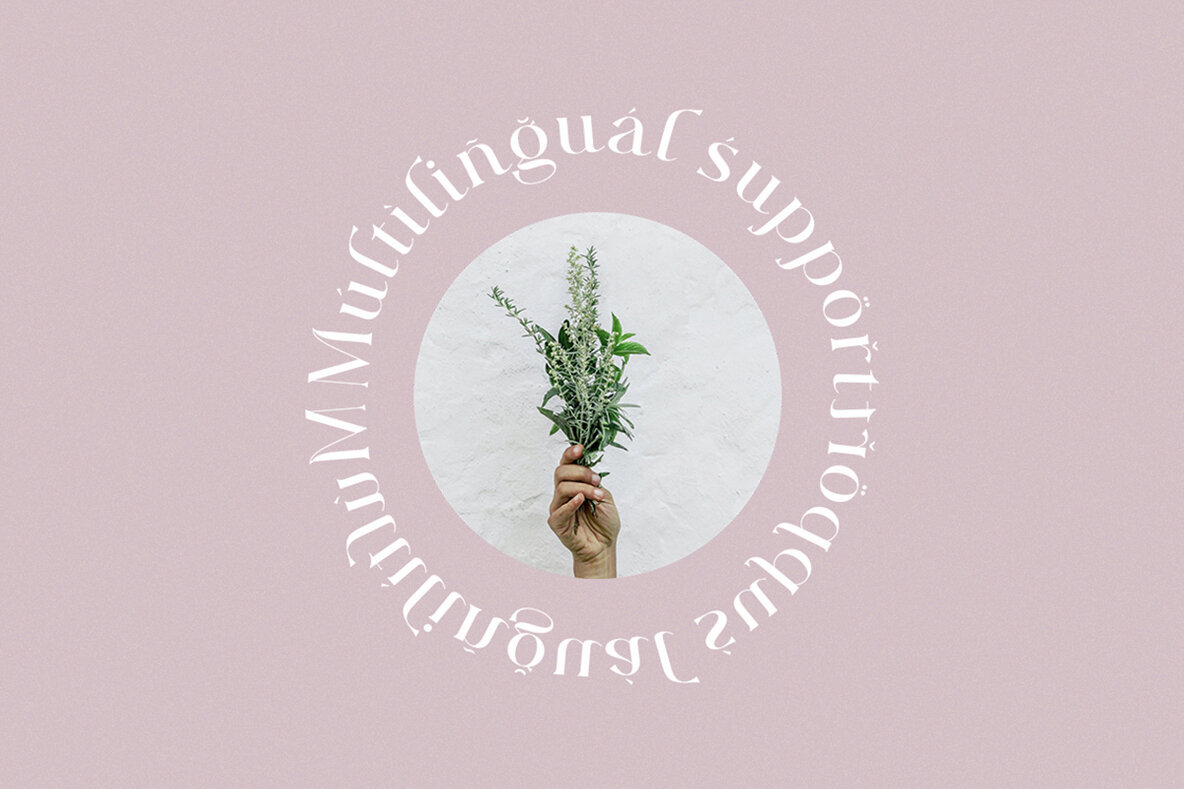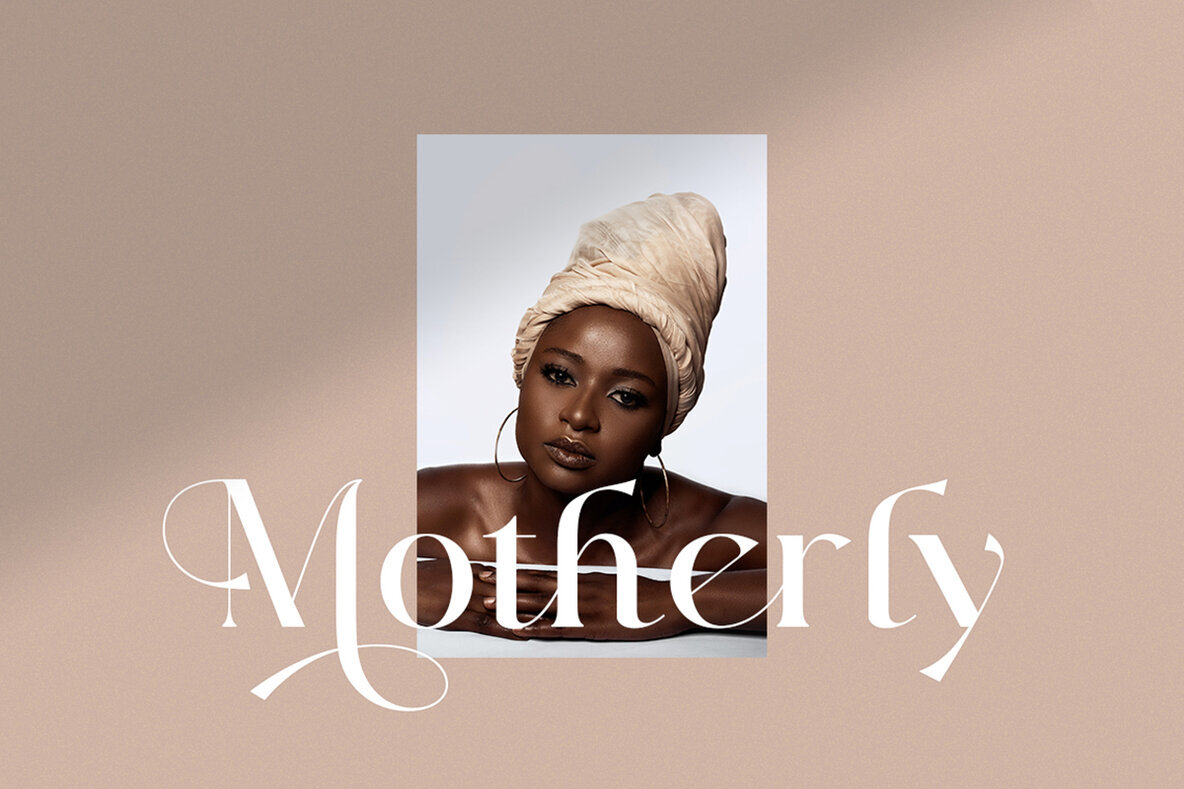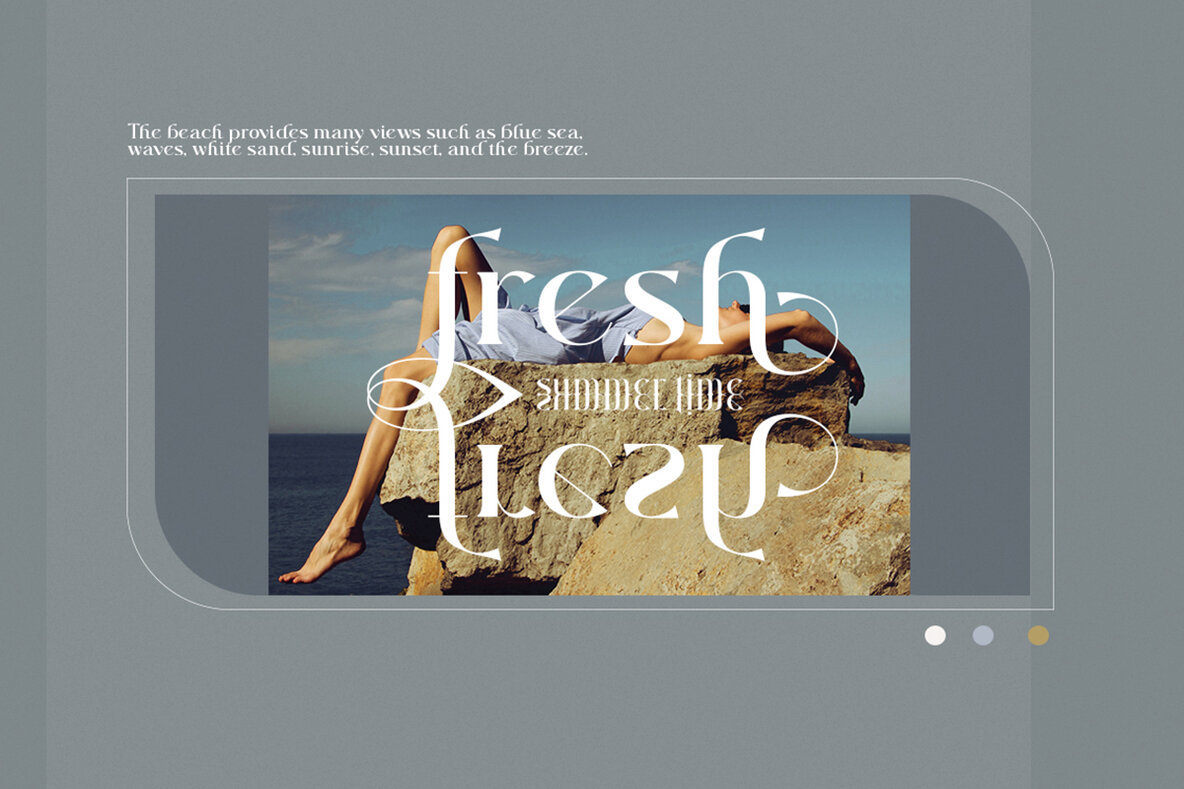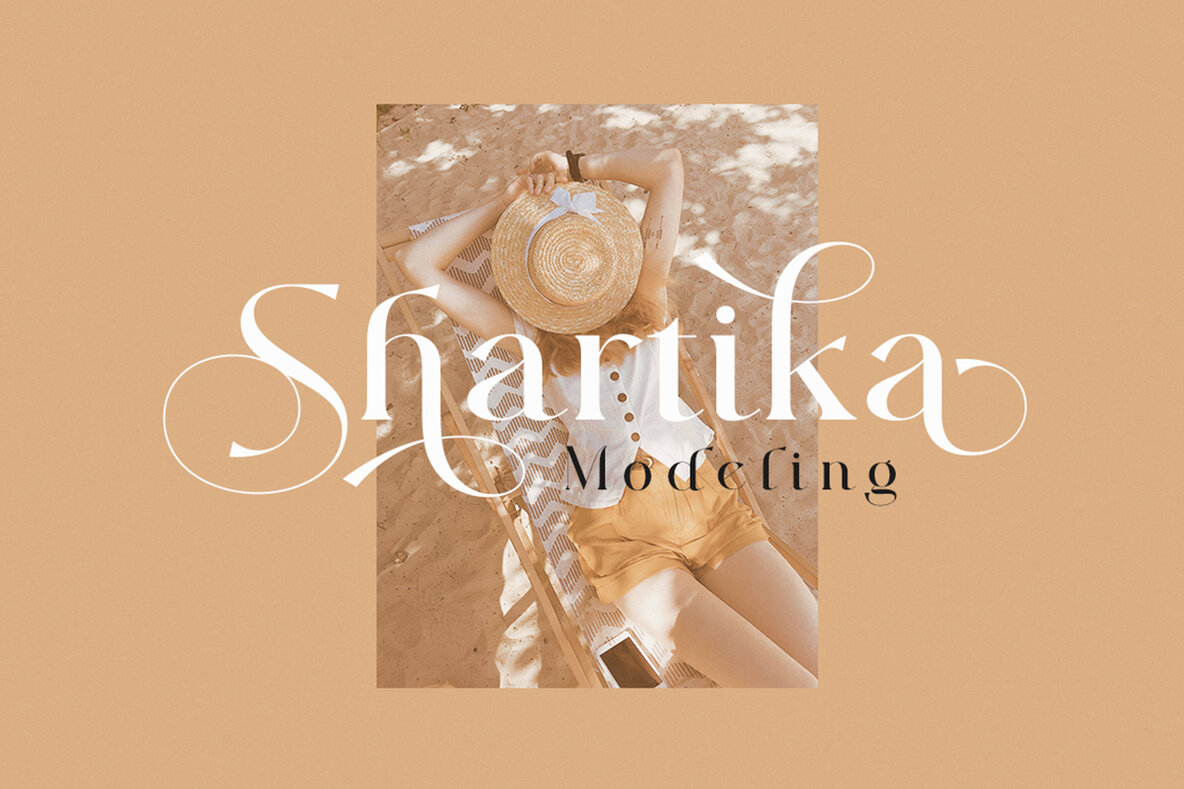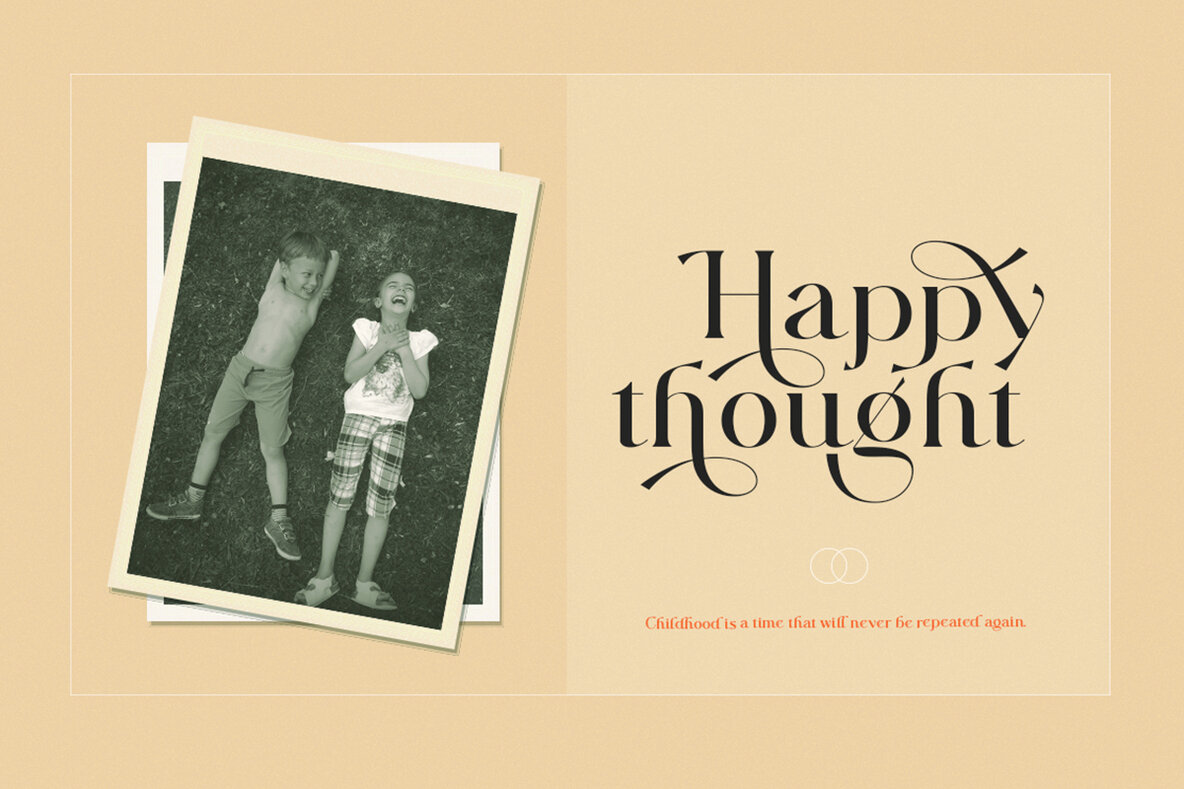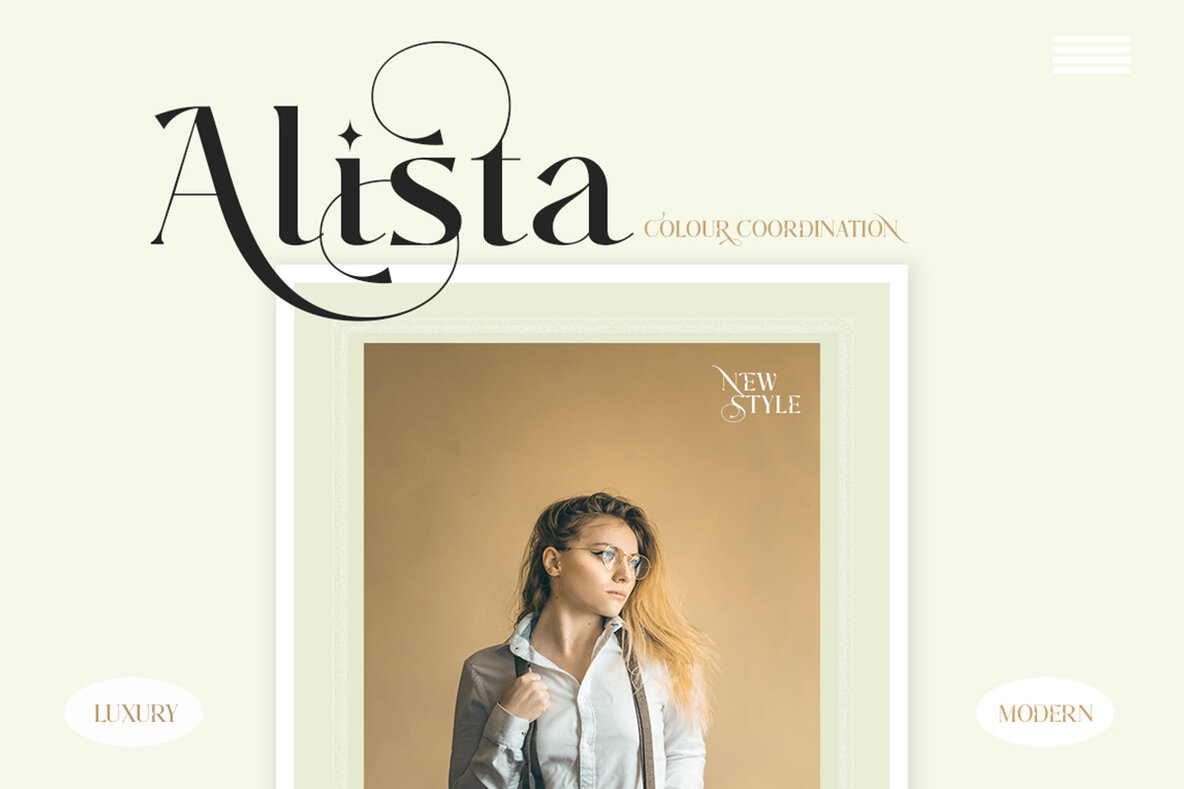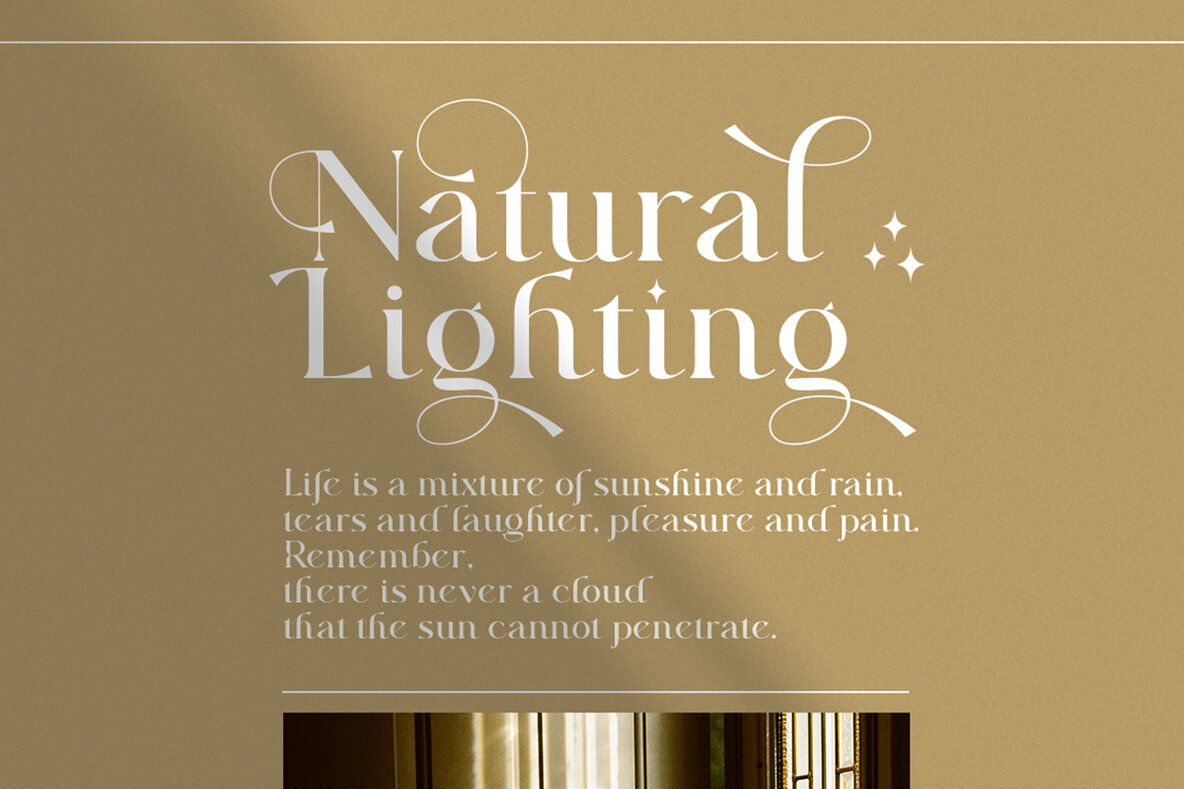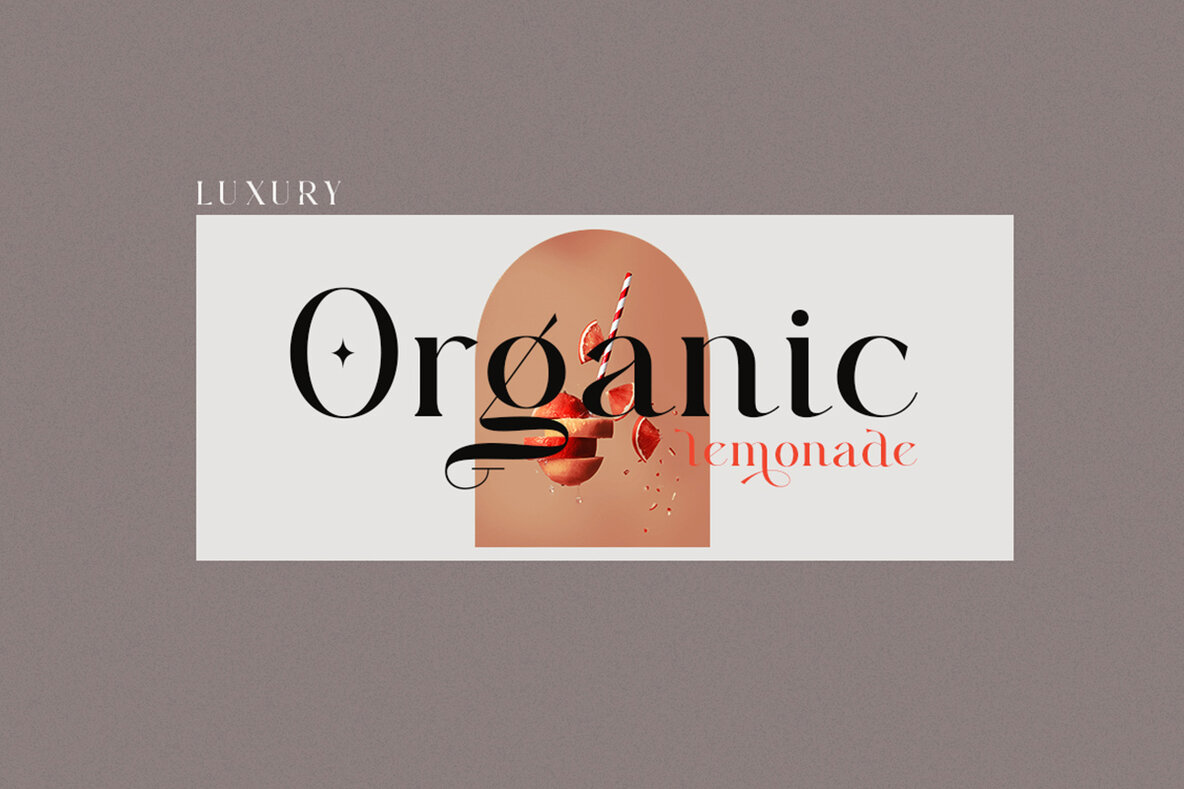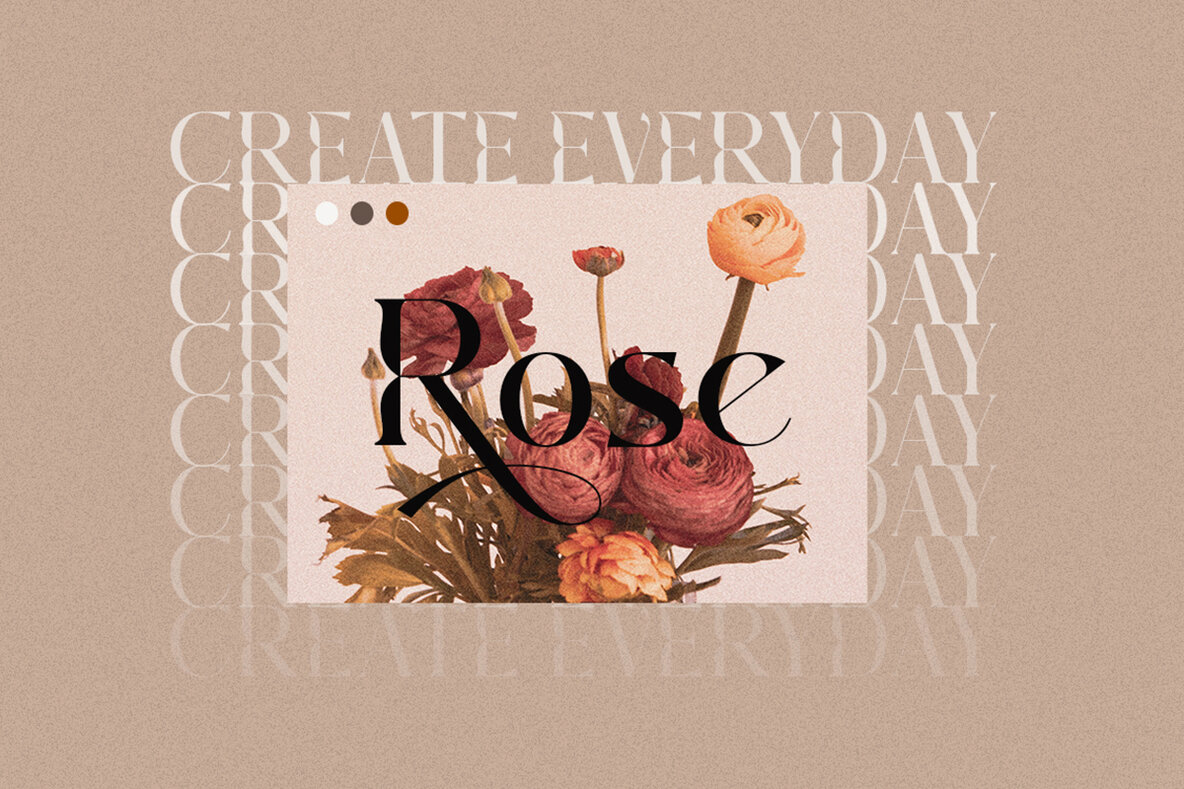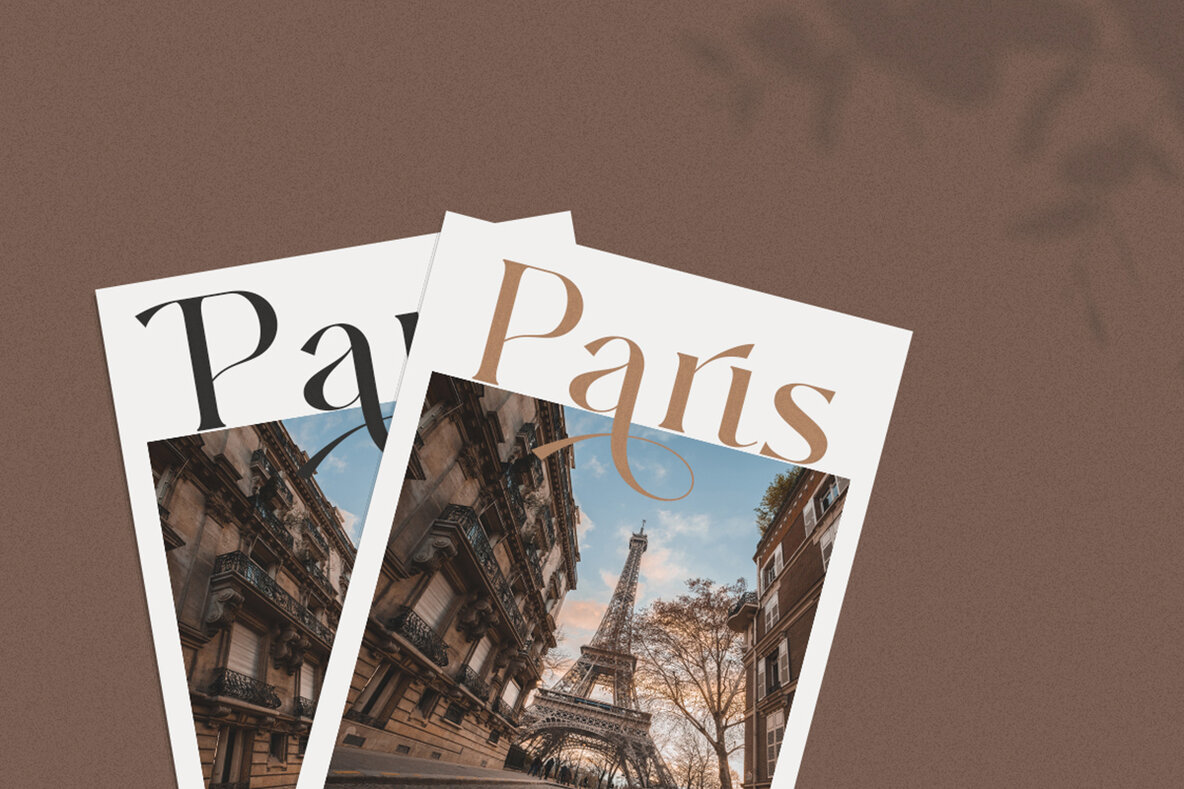
Majors Font
Majors font is a versatile choice for a wide range of design projects. Whether you're working on magazine images, wedding invitations, branding, poster design, or anything else, Majors font's sleek and modern design will enhance your work. Its versatile style makes it a great choice for both professional and creative projects, giving you the flexibility to create designs that stand out.